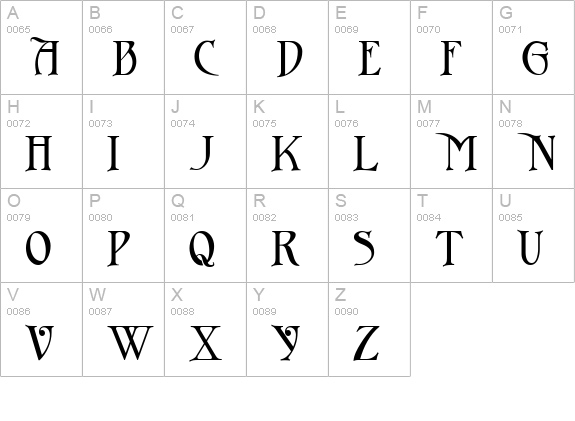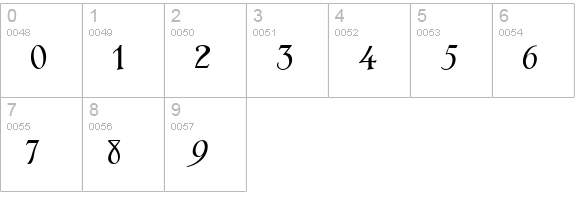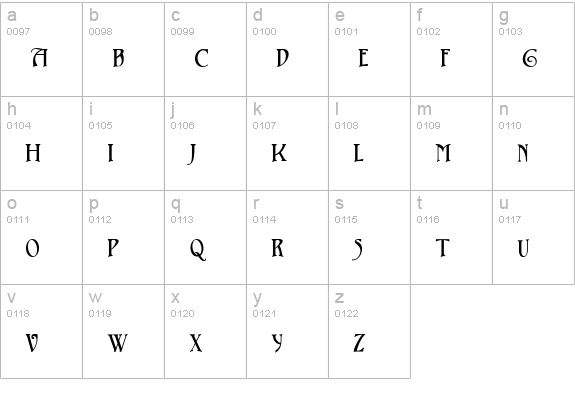
Inglenook Corner NF is a captivating and versatile font that effortlessly combines classic elegance with a touch of modern flair. With its unique blend of clean lines and intricate details, this font is sure to make a statement in any design project. The letters of Inglenook Corner NF are meticulously crafted, showcasing a perfect balance between sophistication and readability. Its tall and slender letterforms exude a sense of elegance, while the subtle curves and delicate serifs add a touch of refinement. This font is ideal for a wide range of applications, from branding and logos to editorial designs and invitations. It effortlessly conveys a sense of timelessness and sophistication, making it suitable for both formal and casual occasions. One of the most remarkable features of Inglenook Corner NF is that it is available for free download at FontsMarket.com. This means that designers and creatives can enjoy the beauty and versatility of this font without any cost. Whether you are a professional designer or a hobbyist, you can easily access this font and incorporate it into your projects with ease. Inglenook Corner NF is a font that invites creativity and opens up endless possibilities. Its timeless appeal and freely available nature make it a must-have for any design enthusiast. Embrace the elegance and versatility of Inglenook Corner NF and elevate your designs to new heights.